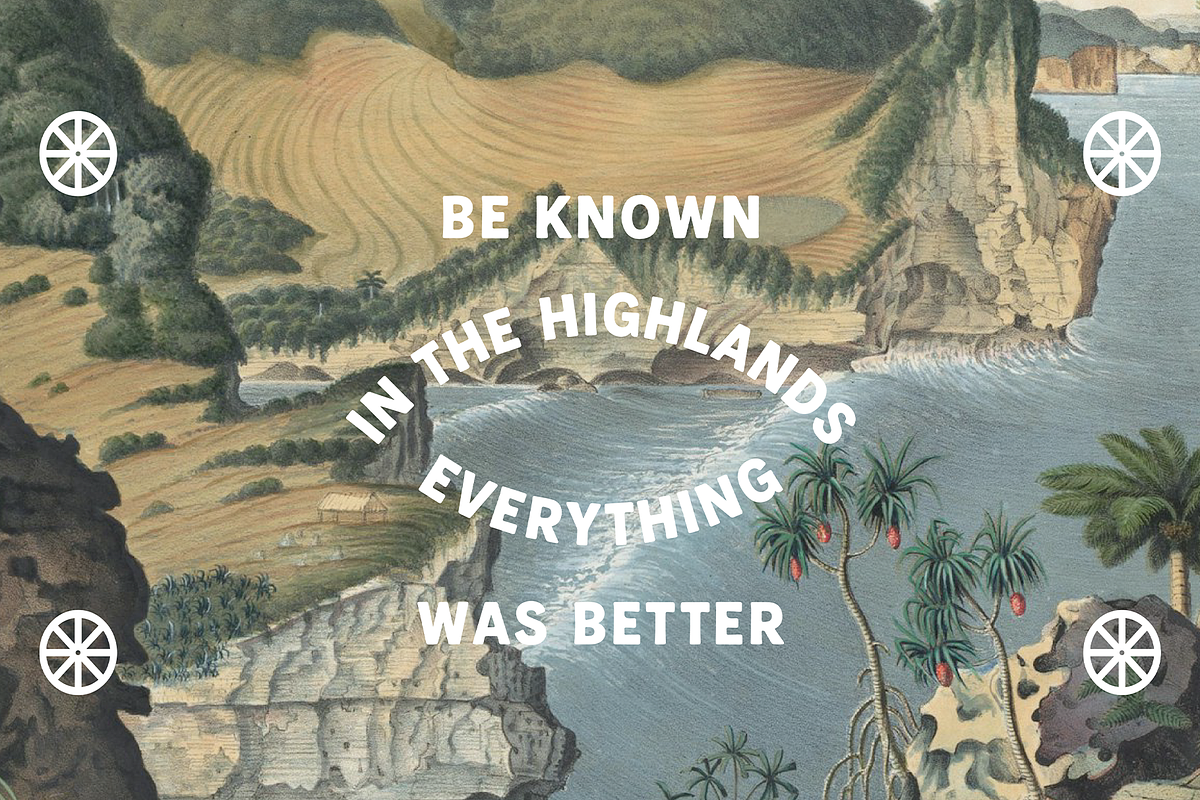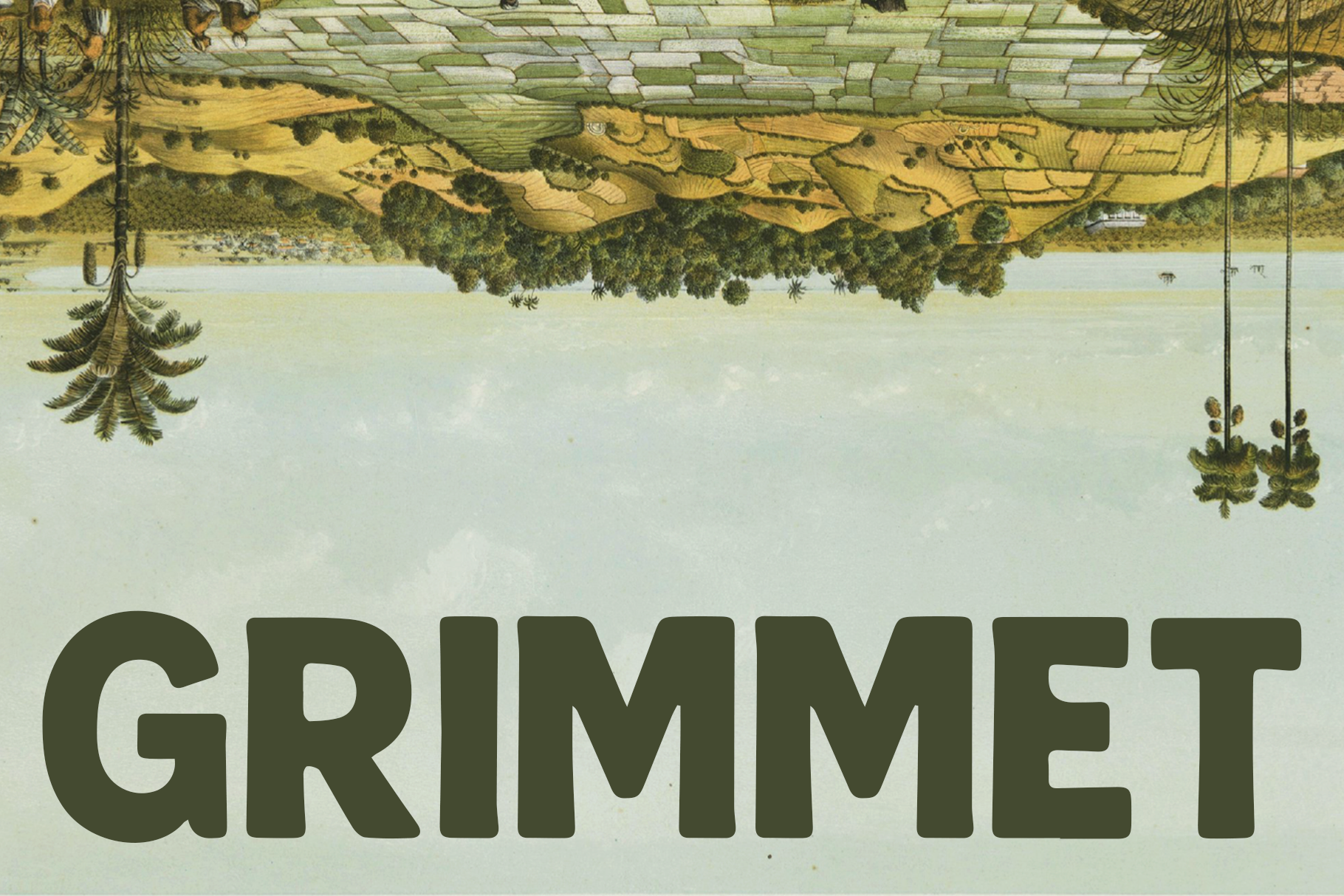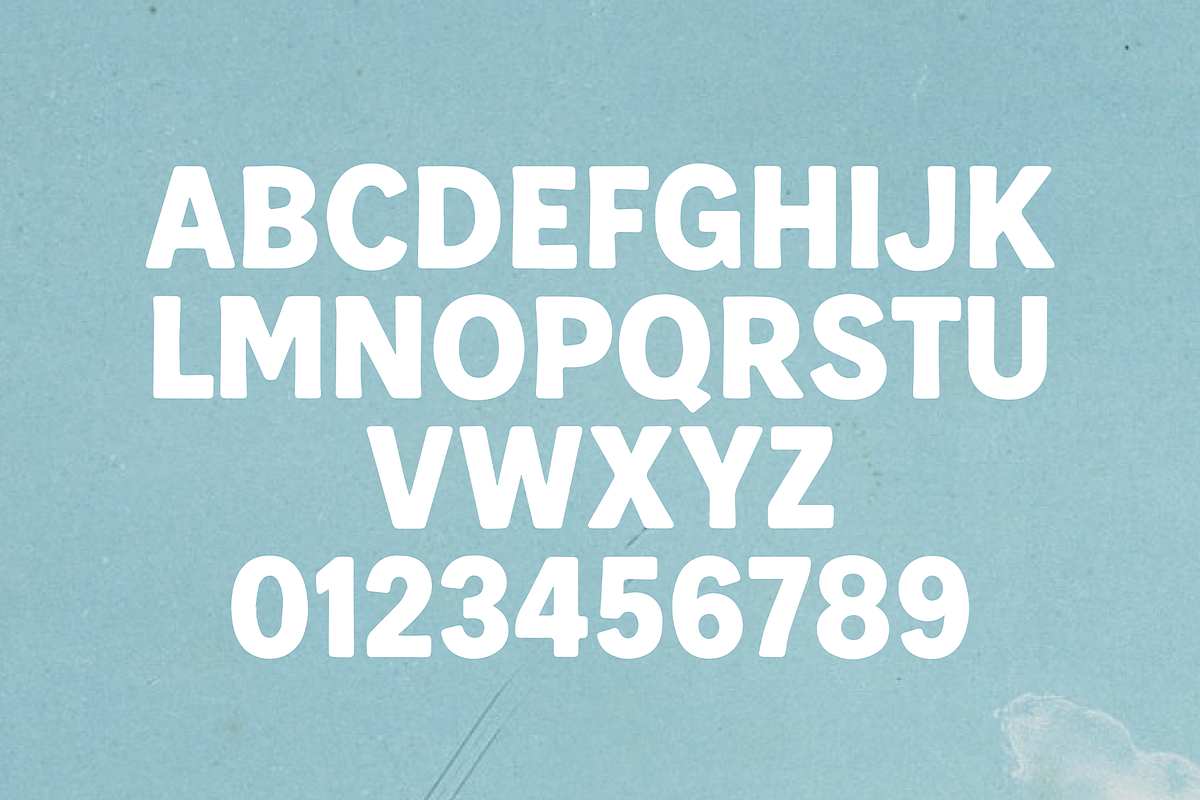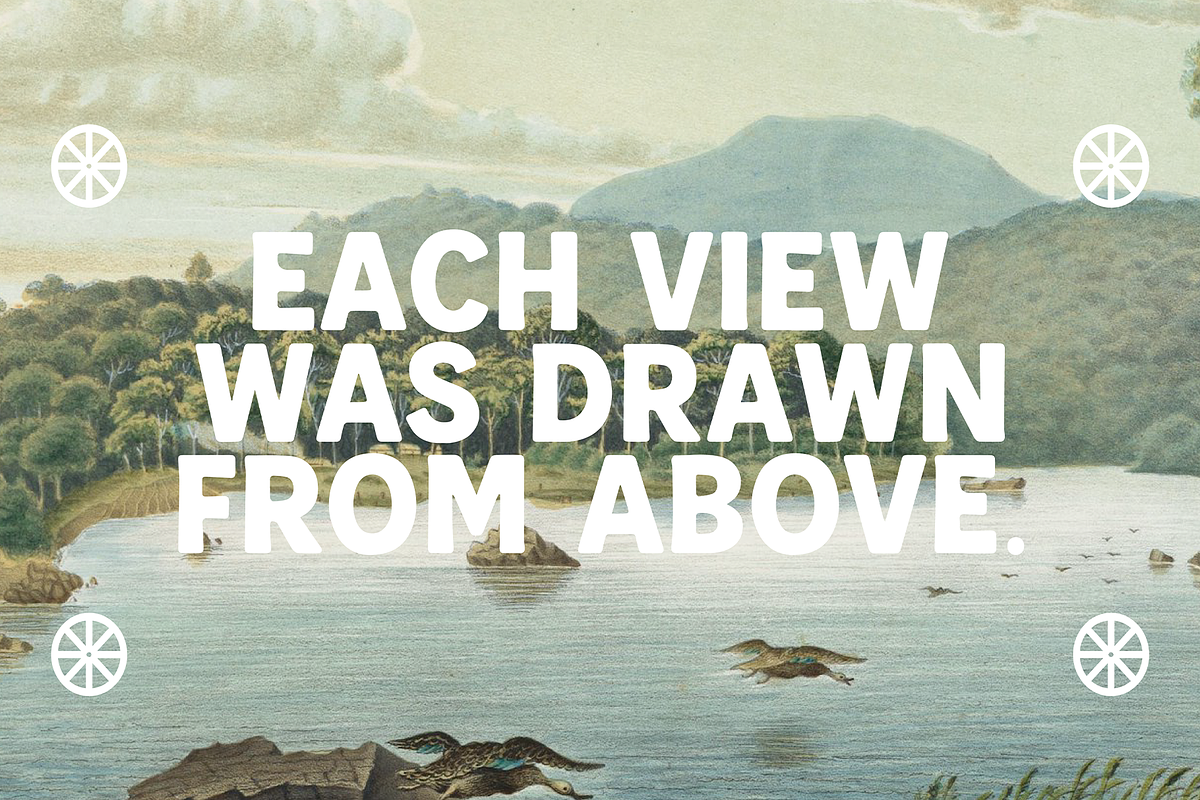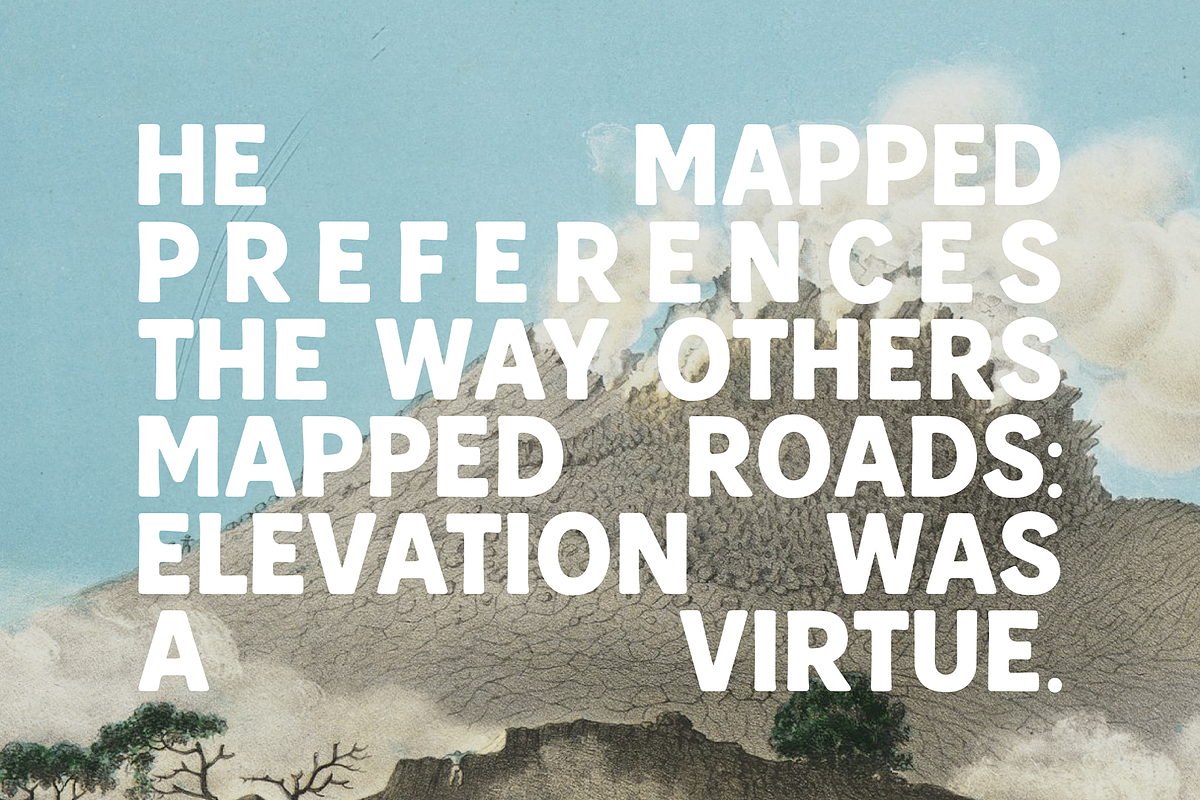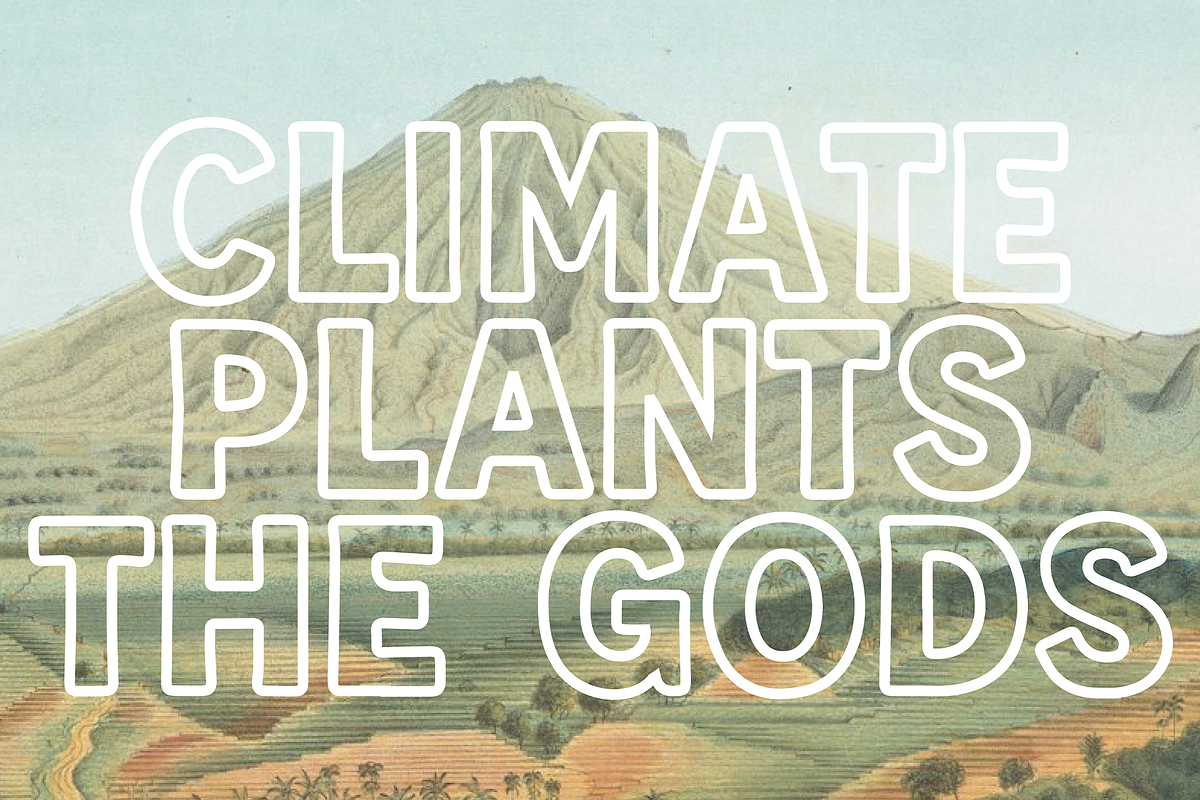
Grimmet - Display Font
Grimmet is a bold, all-caps display typeface designed to turn heads and lift moods. With chunky letterforms, cheerful proportions, and a dash of retro charm, it’s perfect for logos, packaging, signage, merch, and anywhere your message needs personality.
Whether you’re branding a snack shop, crafting a poster, or making your next passion project pop, Grimmet Sans brings warmth, confidence, and just the right amount of quirk.